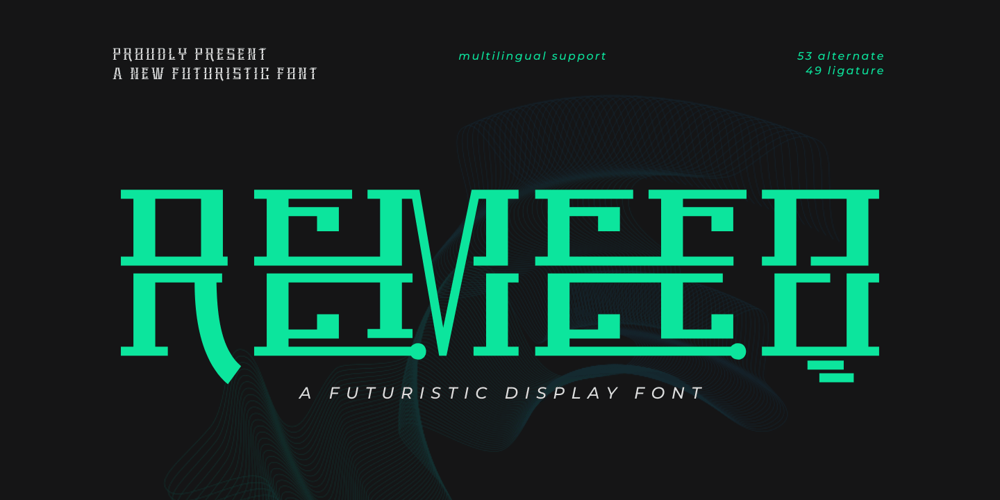
Remeeq Font Family was designed by Rozikan and published by Twinletter. Remeeq contains 1 styles and family package options. Introducing Remeeq, the futuristic font that will take your designs to the next level! With 53 alternate characters for uppercase letters and 49 ligatures, this font offers endless possibilities for creating unique and futuristic designs. The sleek and modern design of this font is perfect for those looking to create designs that are cutting-edge and ahead of their time.Whether you’re designing for a sci-fi movie poster or a tech startup, Remeeq is the font that will make your designs stand out from the crowd. Plus, with multilingual support, you can use this font for projects in any language. Upgrade your design project with Remeeq and impress your audience with your futuristic and innovative designs.What’s Included :- File font – All glyphs Iso Latin 1- Alternate, Ligature- Simple installations- We highly recommend using a program that supports OpenType features and Glyphs panels like many Adobe apps and Corel Draw so that you can see and access all Glyph variations.- PUA Encoded Characters – Fully accessible without additional design software.- Fonts include Multilingual support